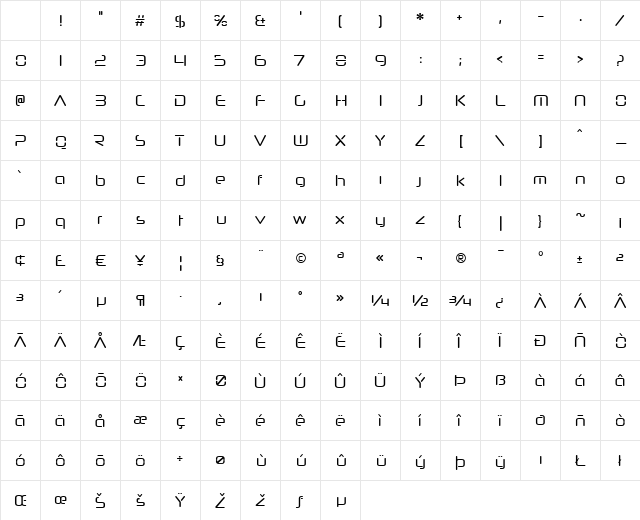
Neuropol Nova Cnd Regular Free Font
Neuropol Nova Cnd Regular
Neuropol Nova Cnd Family
Complete Neuropol Nova Cnd Regular glyph index. Displaying only characters natively supported by Neuropol Nova Cnd Regular font.
Design Context for Neuropol Nova Cnd
Neuropol Nova Cnd is a composed and adaptable typeface that performs quietly and consistently across a wide range of design contexts.